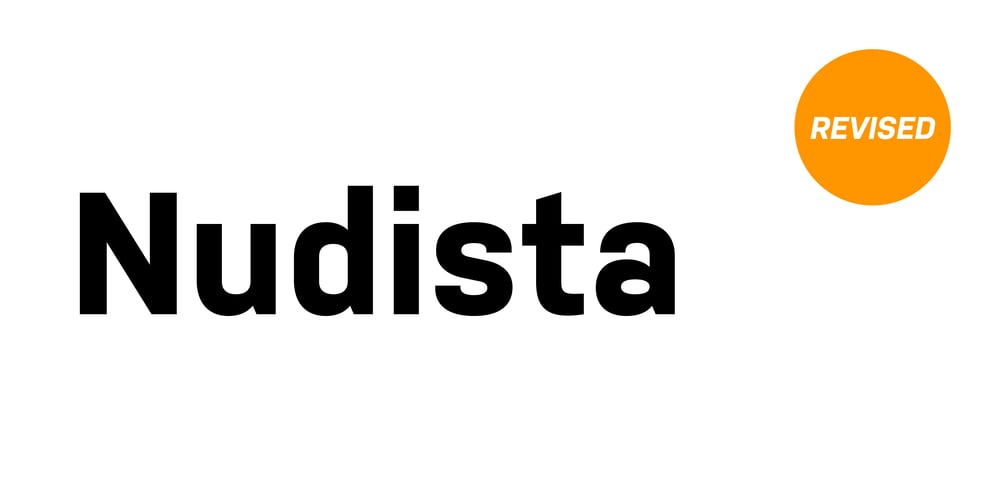
Nudista Font Family was designed by Tomáš Brousil and published by Suitcase Type Foundry. Nudista contains 12 styles and family package options. Nudista is a monolinear, geometric sans-serif based on the proportions of the Purista typeface, released in 2007. The forms are not based strictly on square shape, but rather on a pleasant oval, round shape. The letter outlines are smooth, even technicist, the geometric precision is however compensated in places where it would get in the way of legibility and compromise the desired visual impact. Nudista was originally conceived as a display type, but it is sufficiently legible even in text sizes. Thus, it suits short texts in corporate prints.Carefully chiselled letter curves are sturdy and well suited for the harsh conditions of low-resolution printing devices, they work well on computer screens and mobile phone displays. However, Nudista works best in corporate systems, navigation and orientation systems, where it may be, also thanks to the sufficient range of weights, a good alternative to the well-known and thus a little overused DIN. Naked typeface with no needless decorations humbly serves in all places where too expressive types could be disturbing.